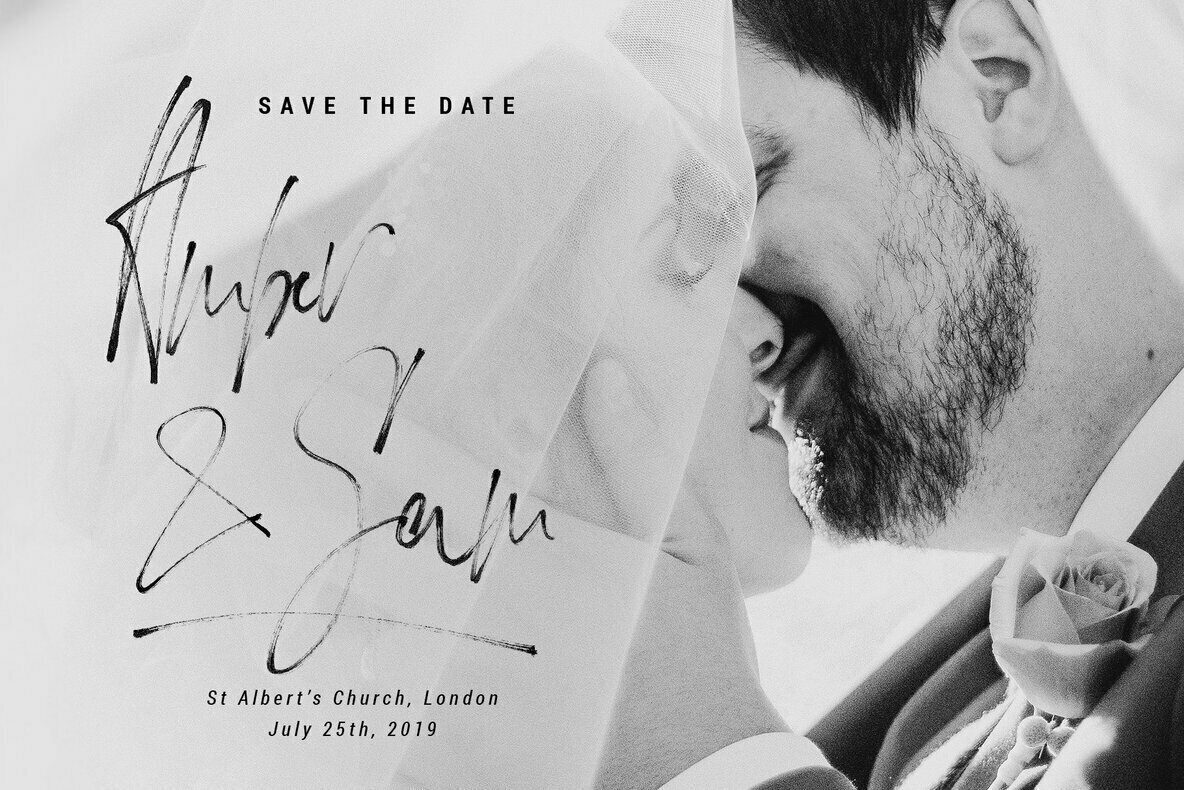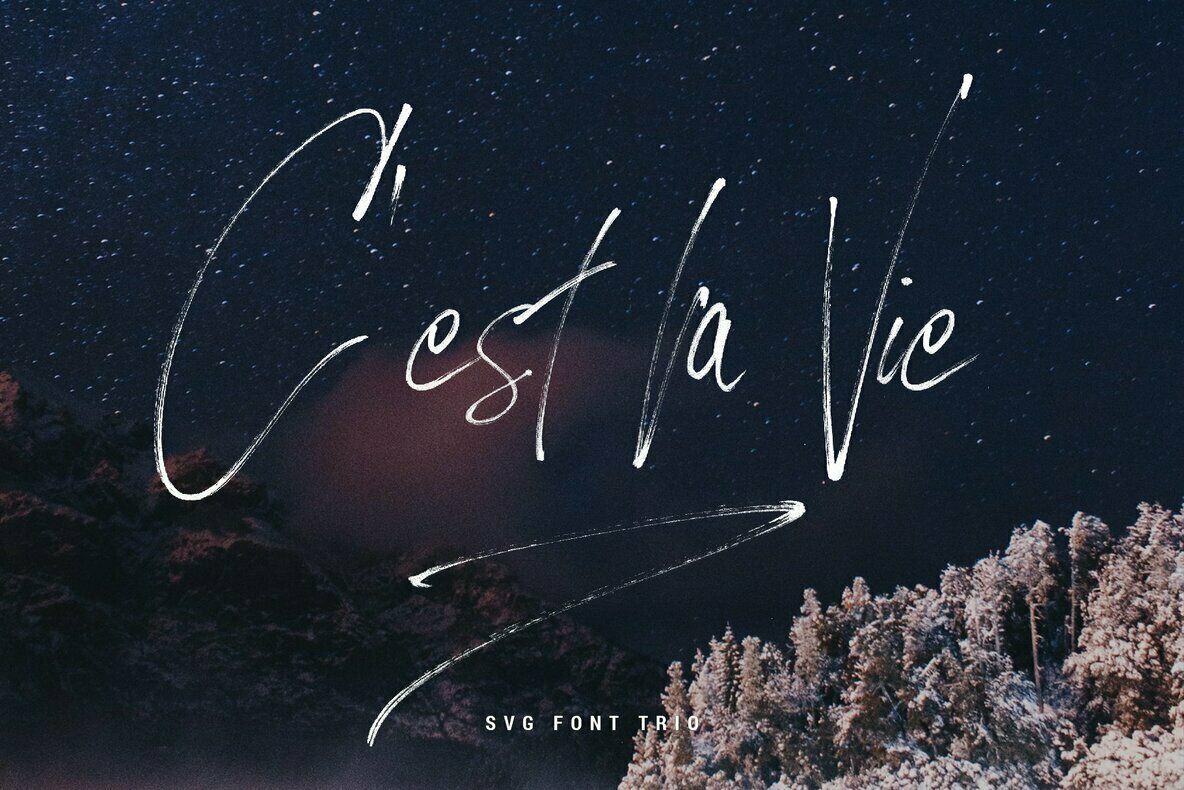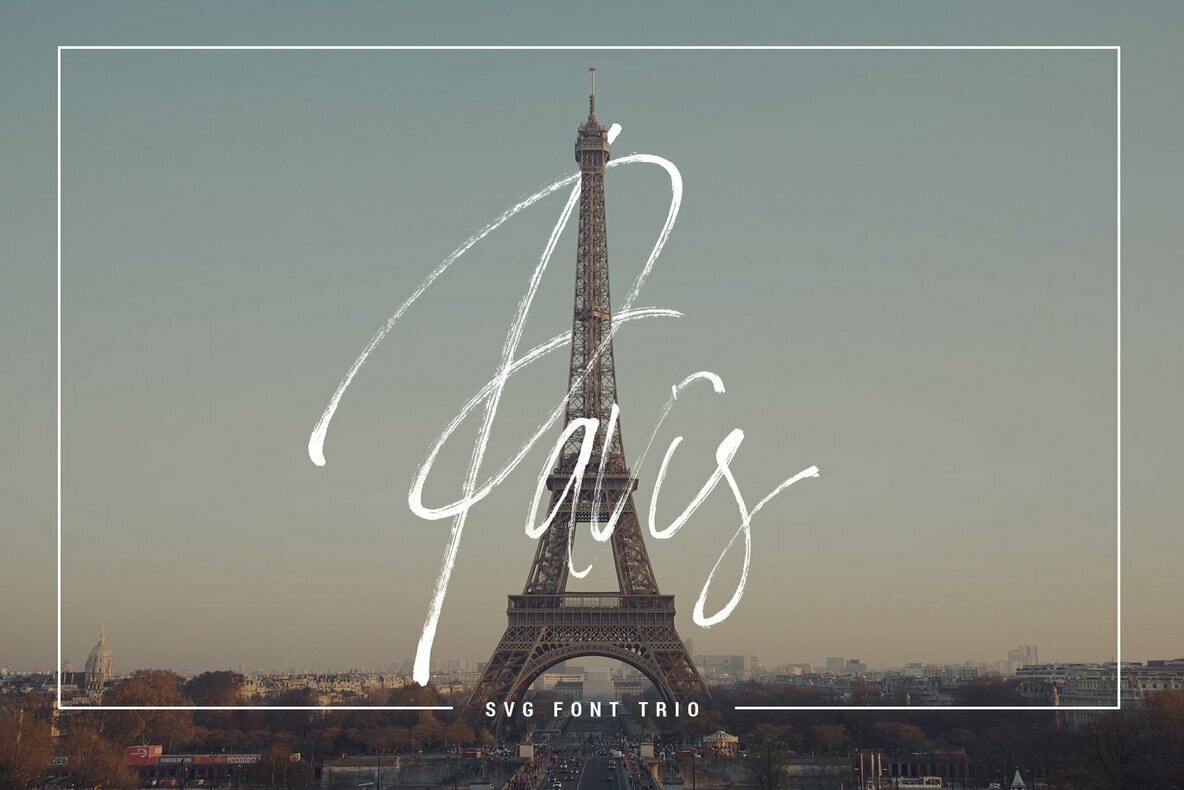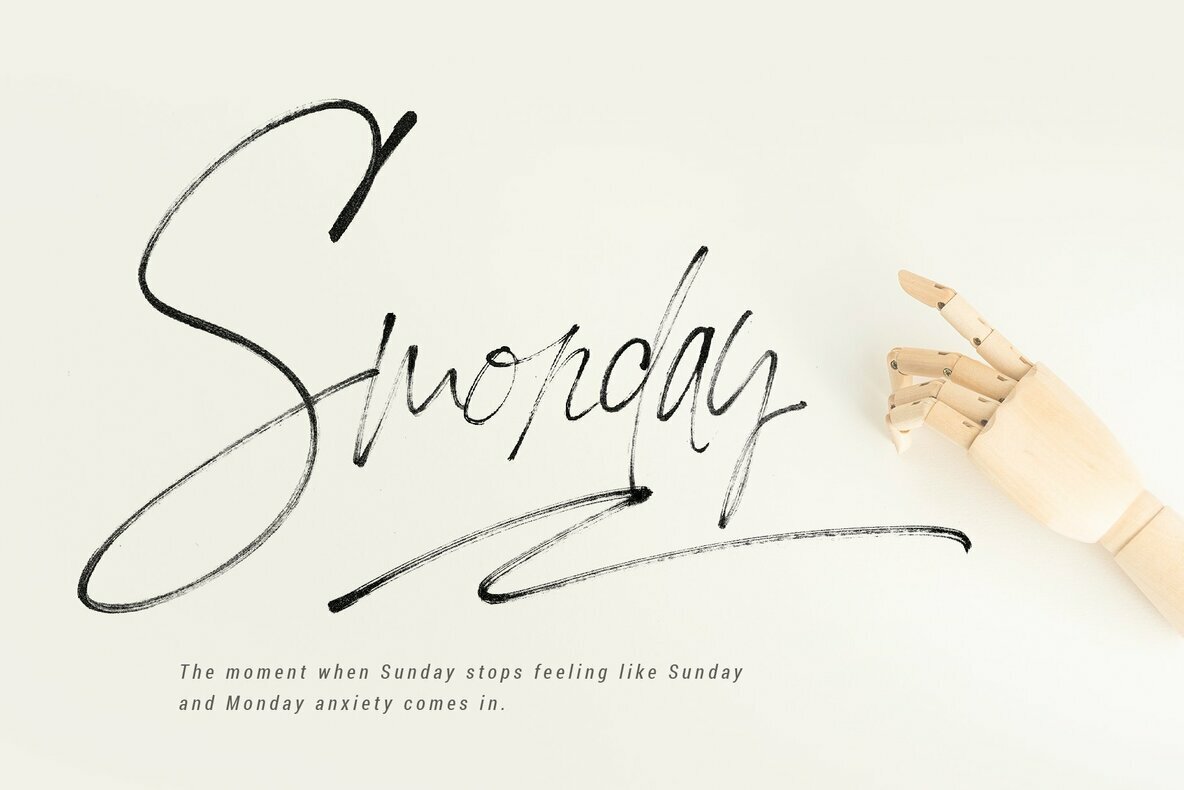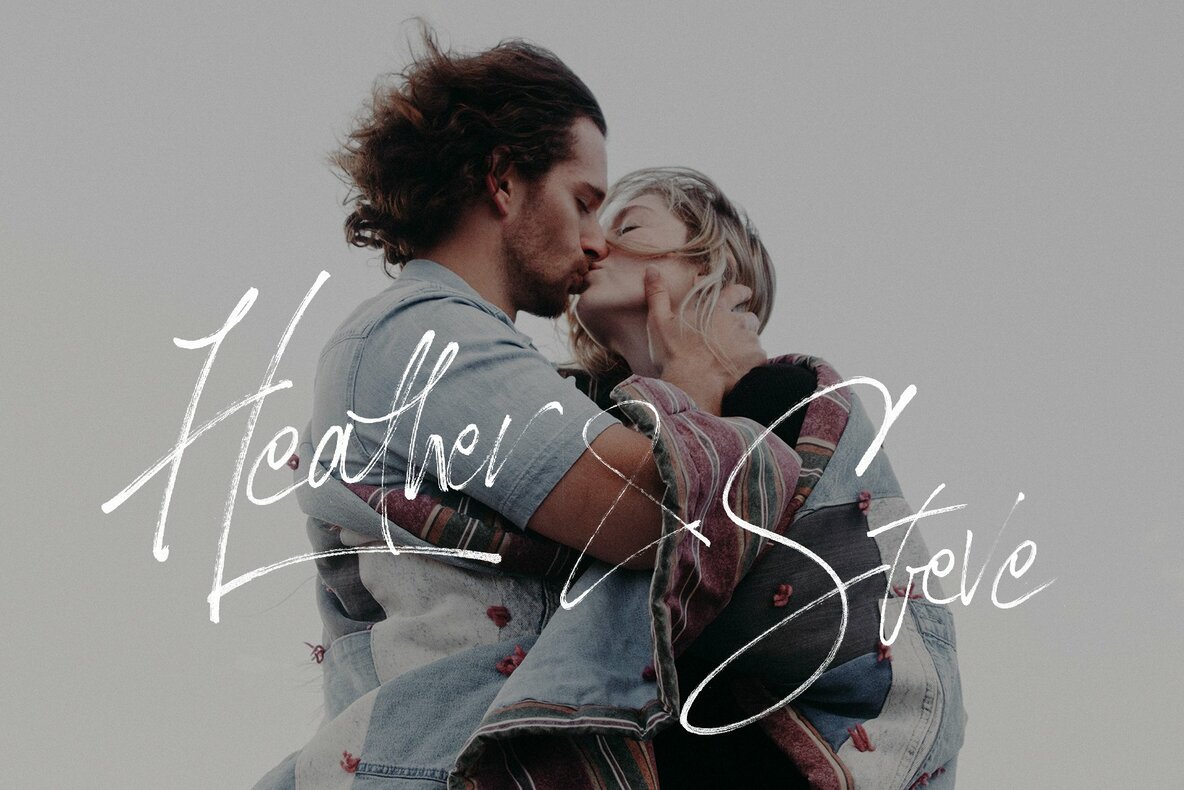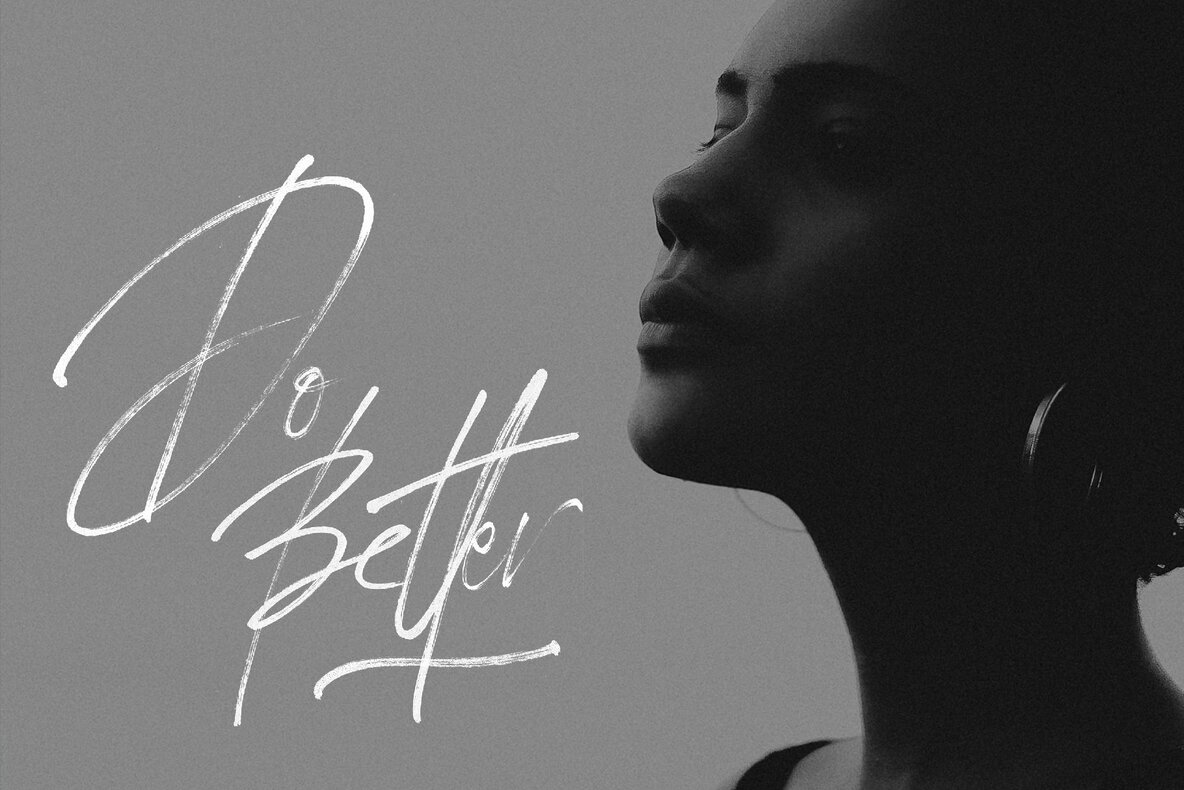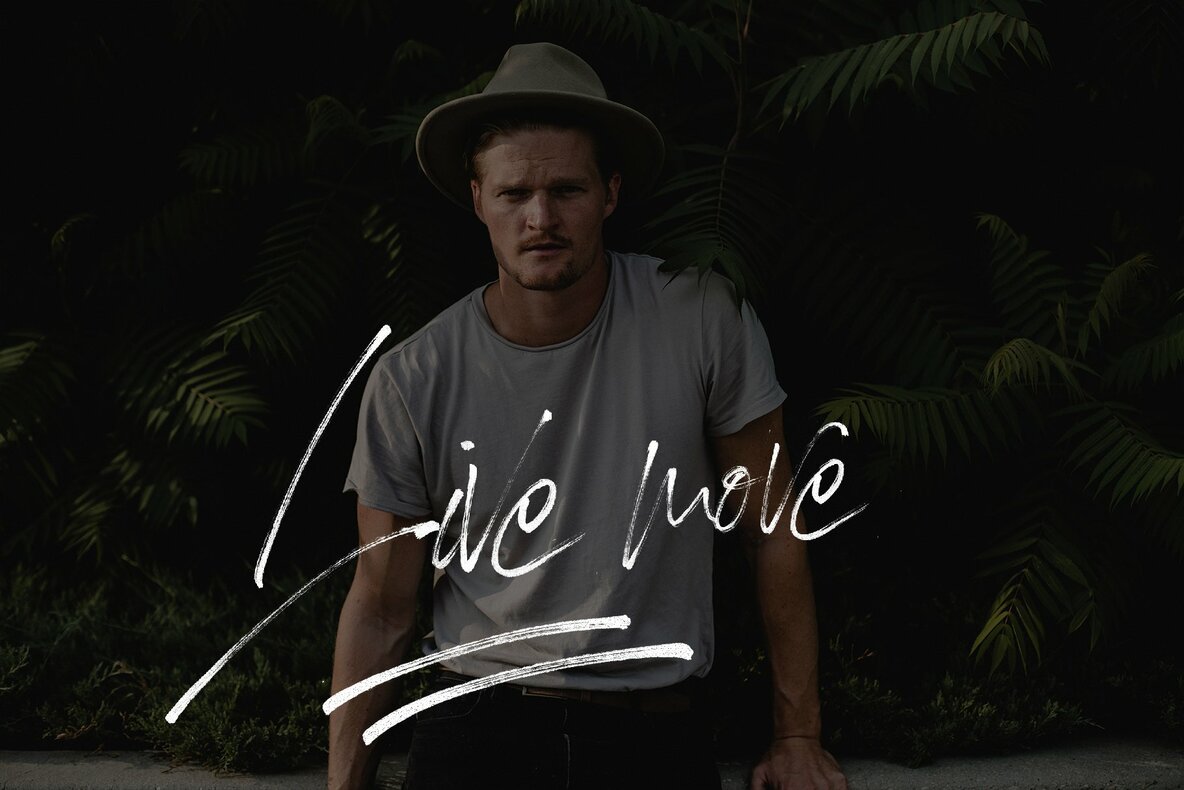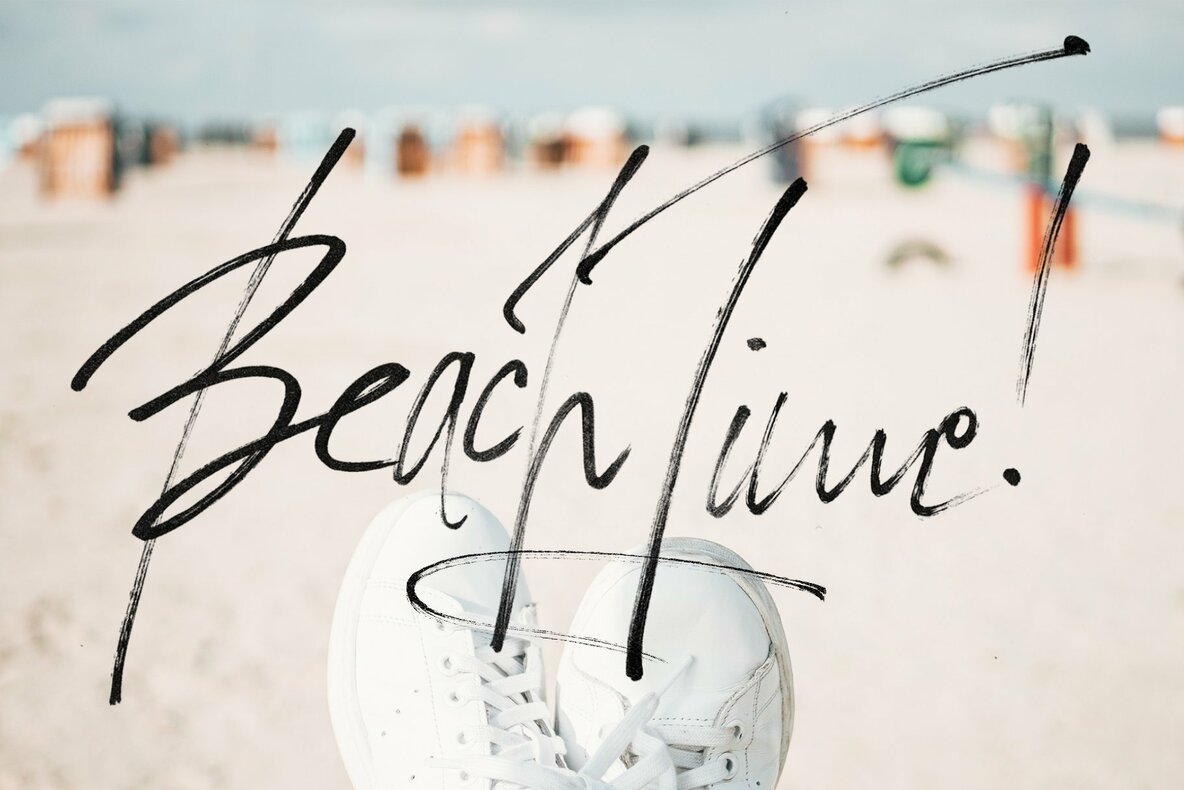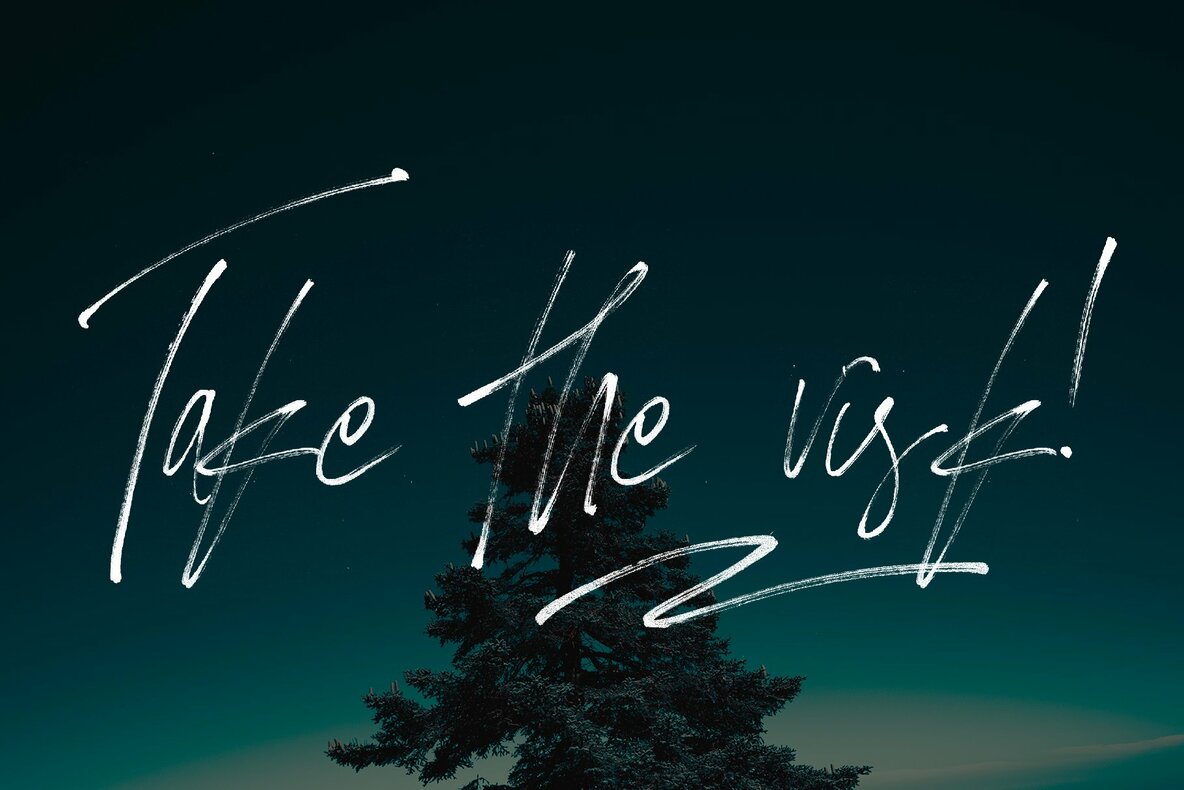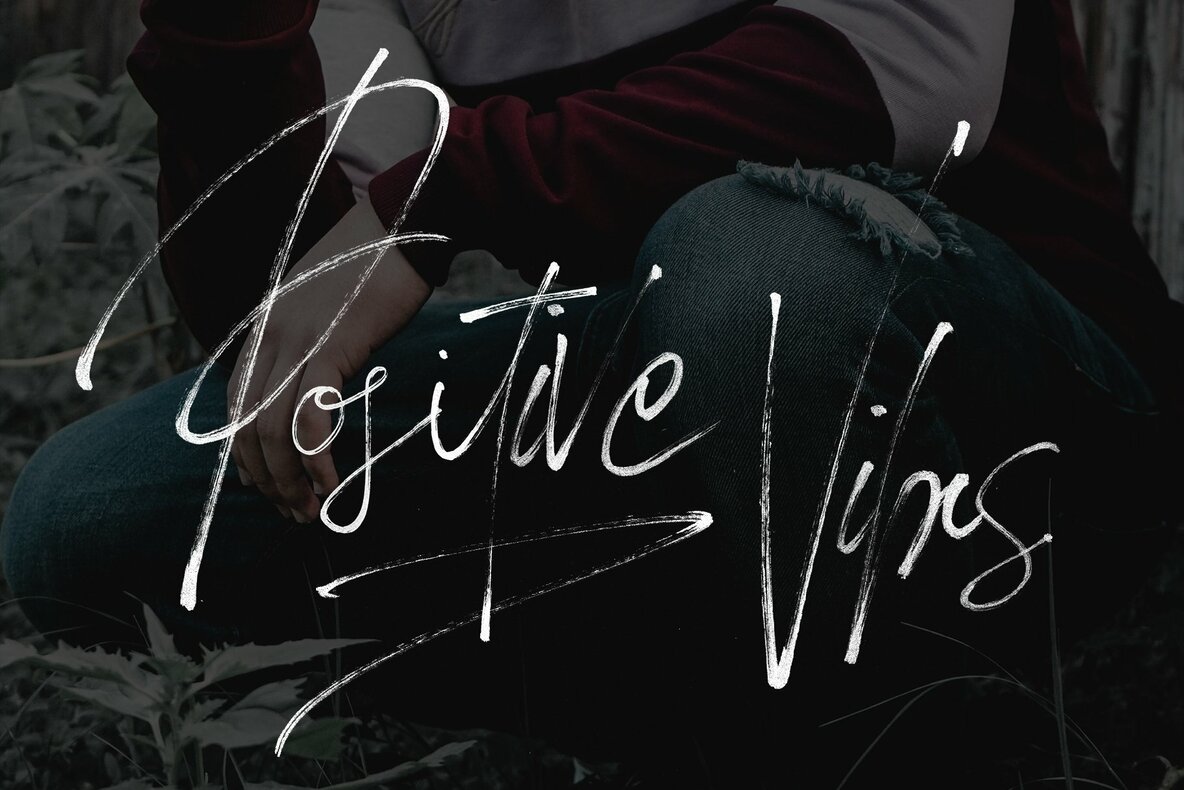
Loving Celine Signature SVG Font Trio
Loving Celine Signature SVG Font Trio that has a true hand writing look and feel. This font trio includes 3 different SVG fonts, 3 matching solid OTF fonts, over 100 ligatures, 28 swashes and full language support, both in SVG and OTF format.